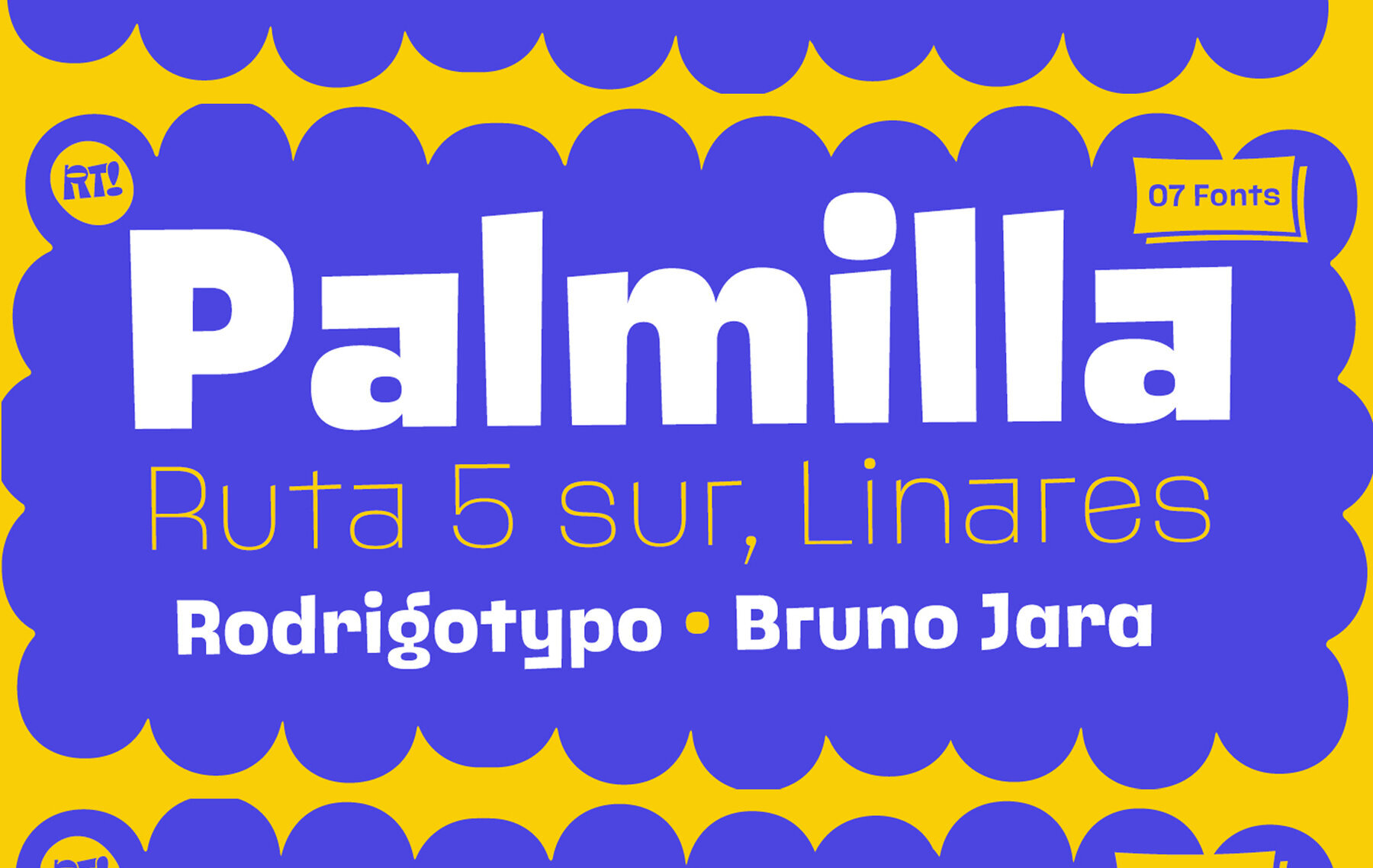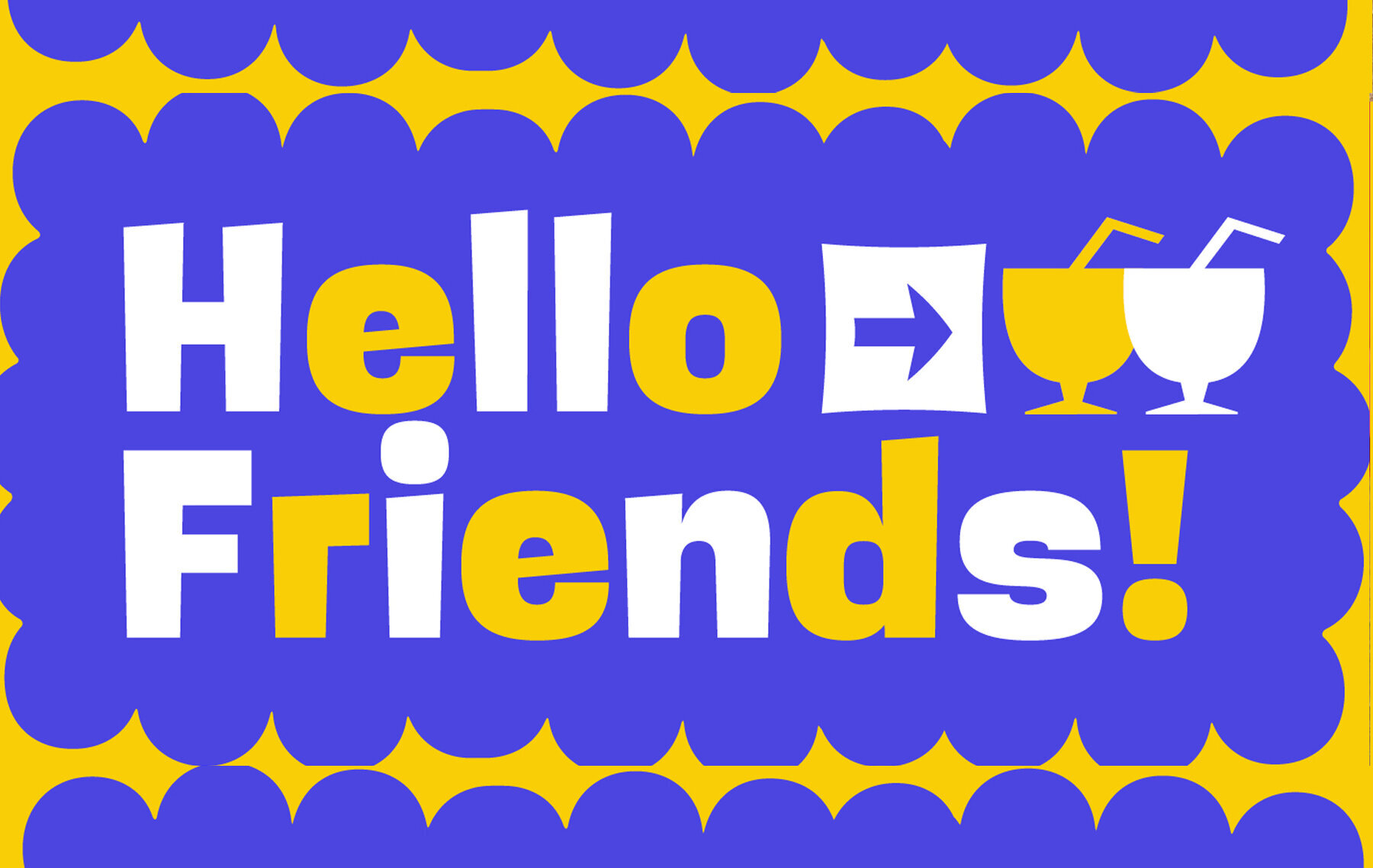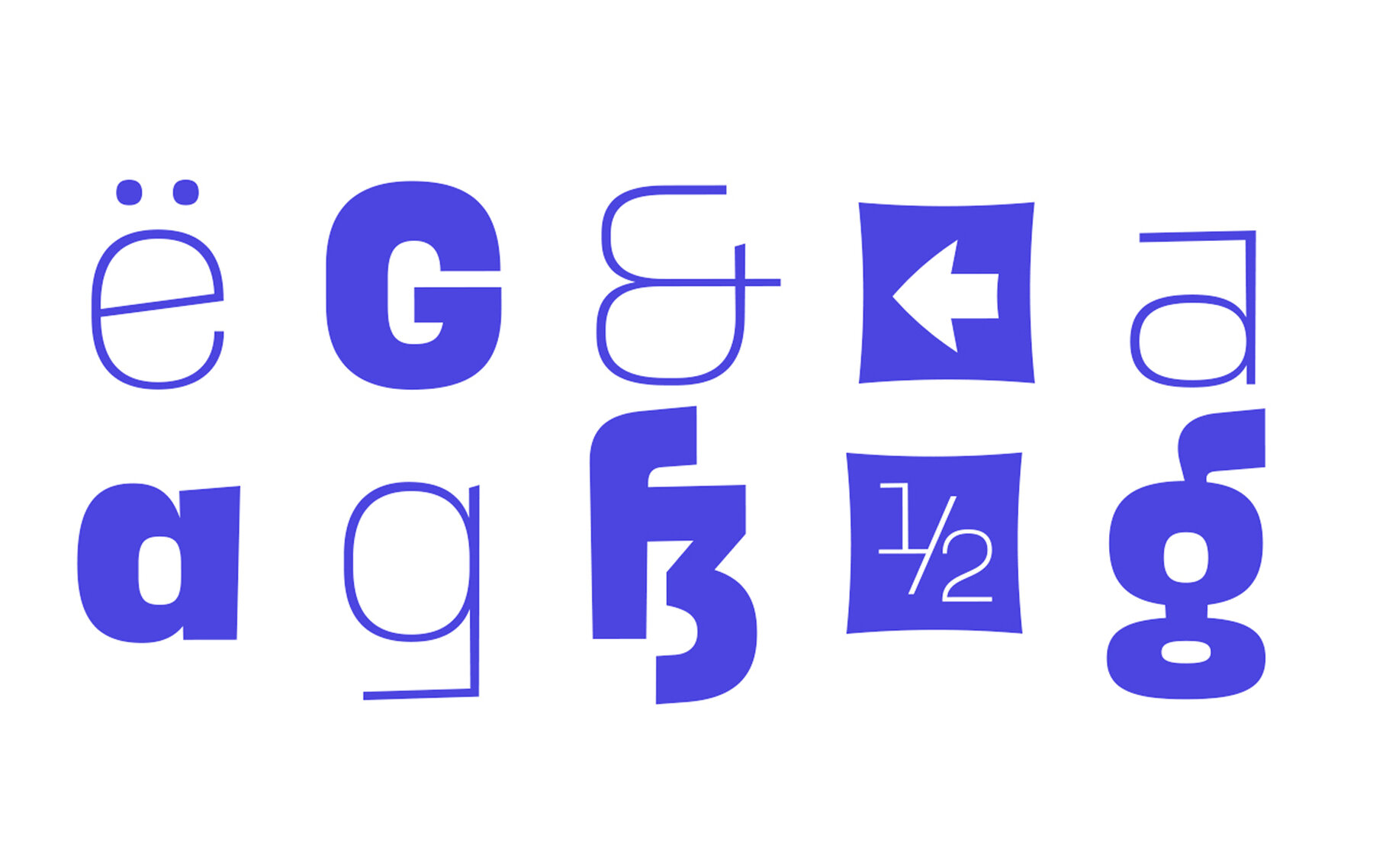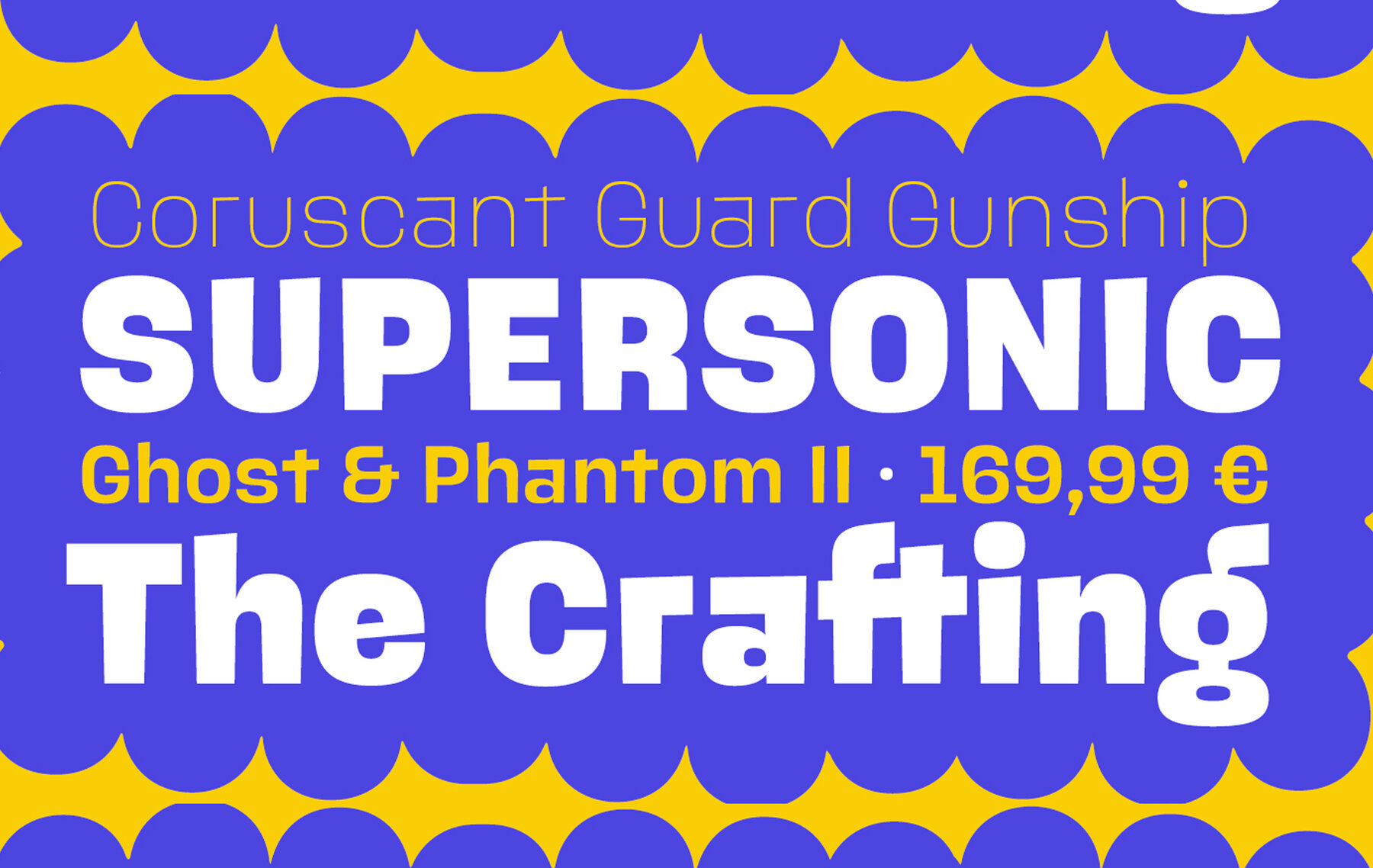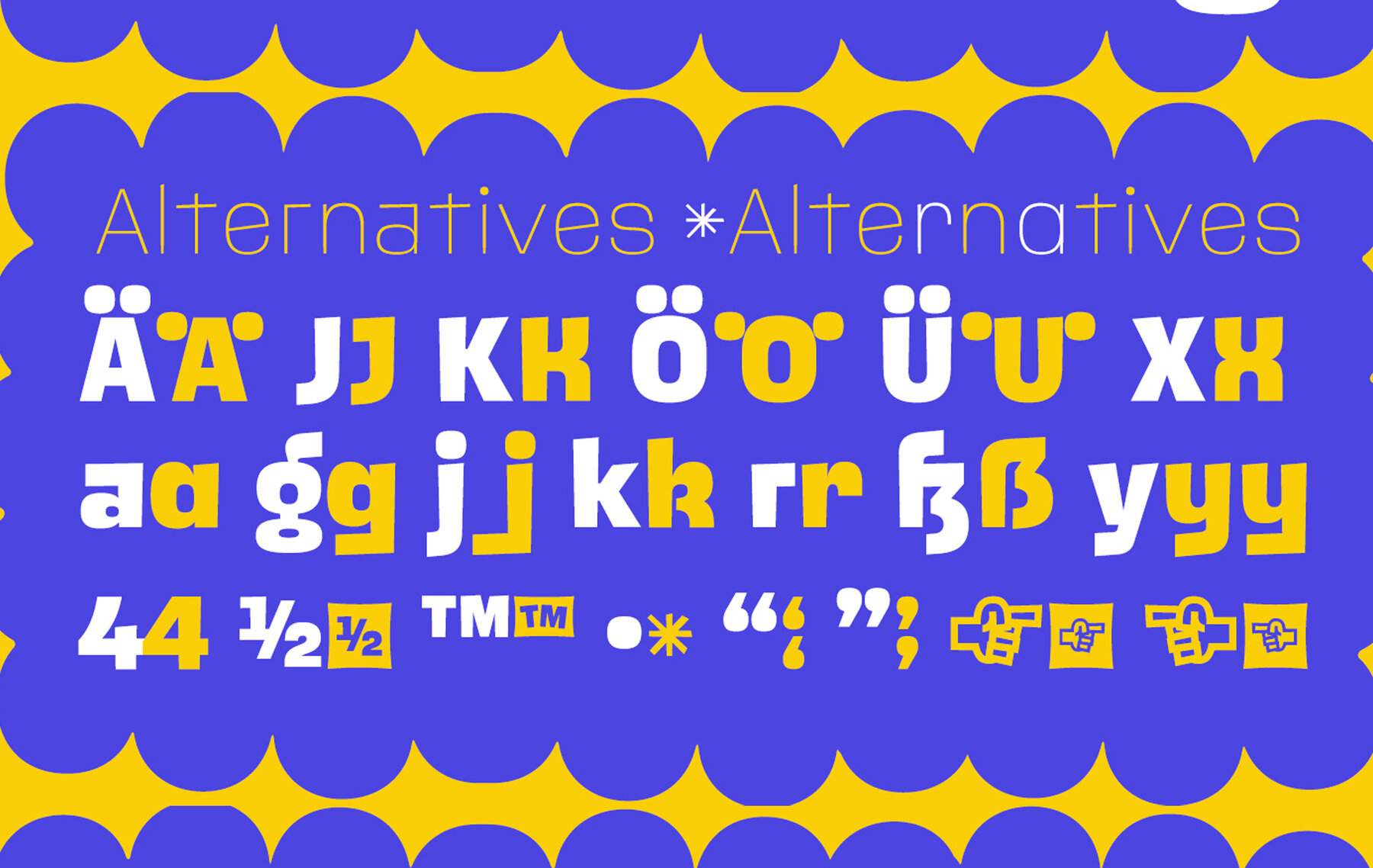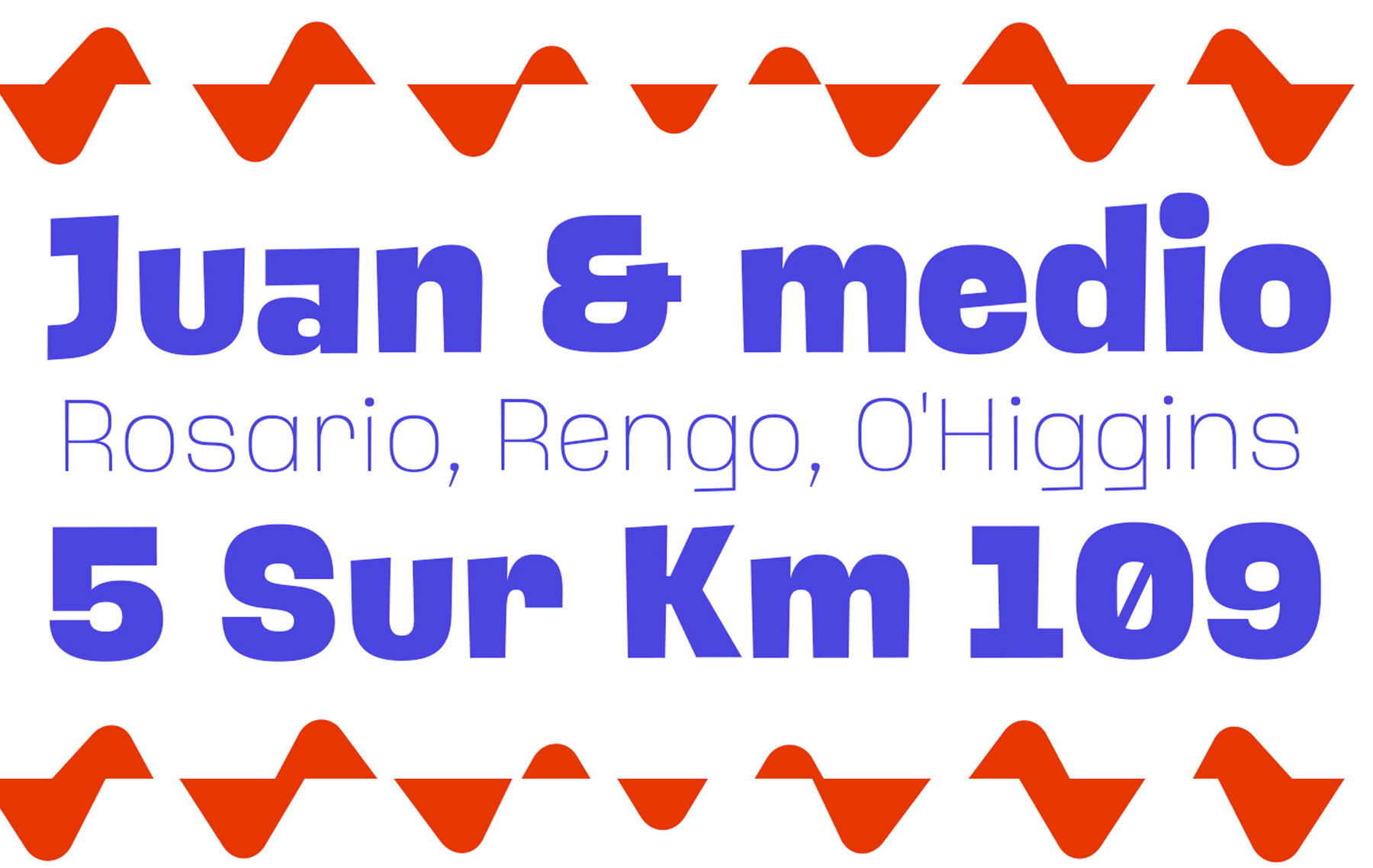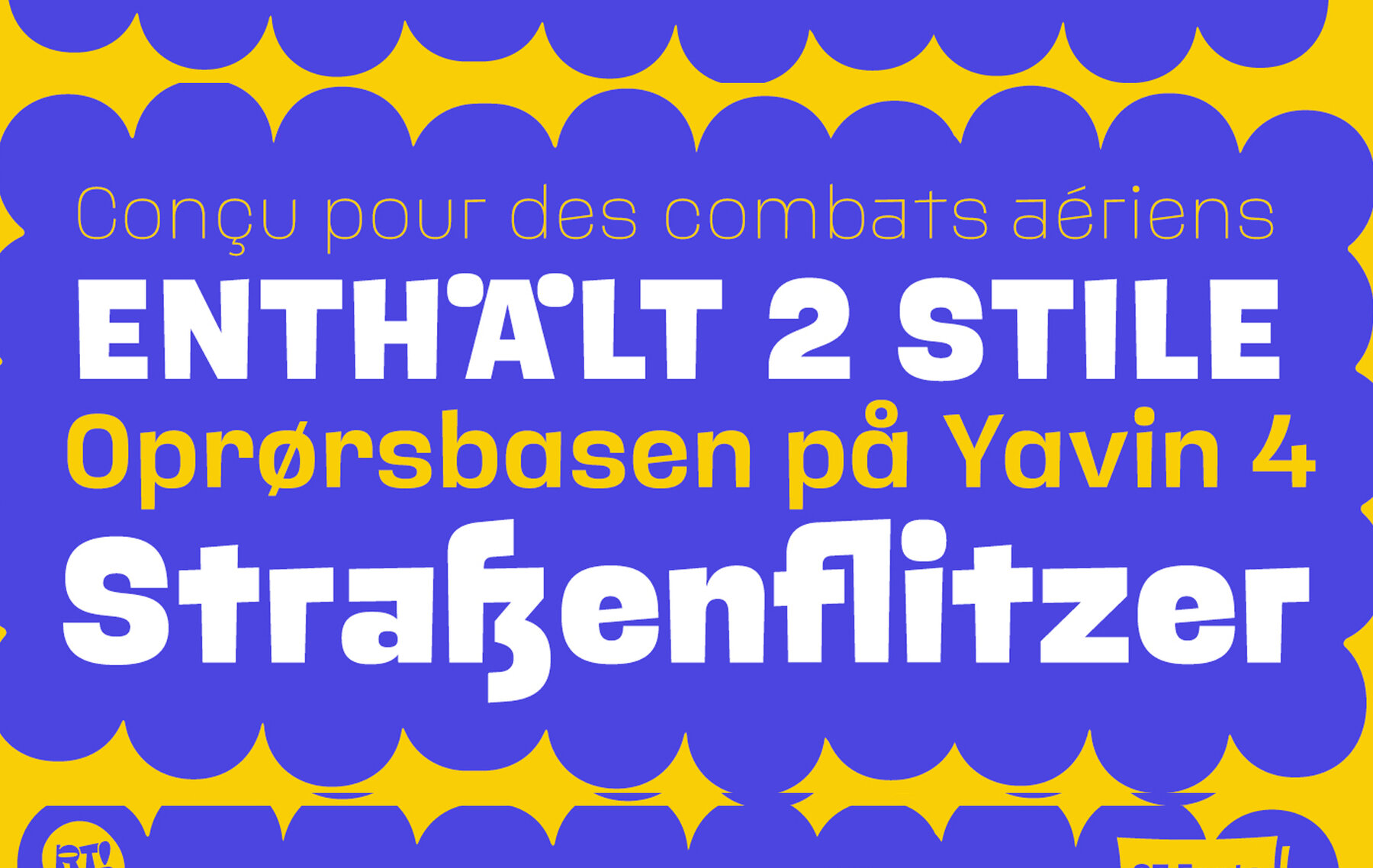
Palmilla Font
The Palmilla font family by Rodrigo Typo offers a uniquely gestural sans-serif experience ideal for creative projects. With its blend of styles, Palmilla is a perfect choice for informal or children's titles, providing versatility and charm.Palmilla: Expressive Sans Font Collection